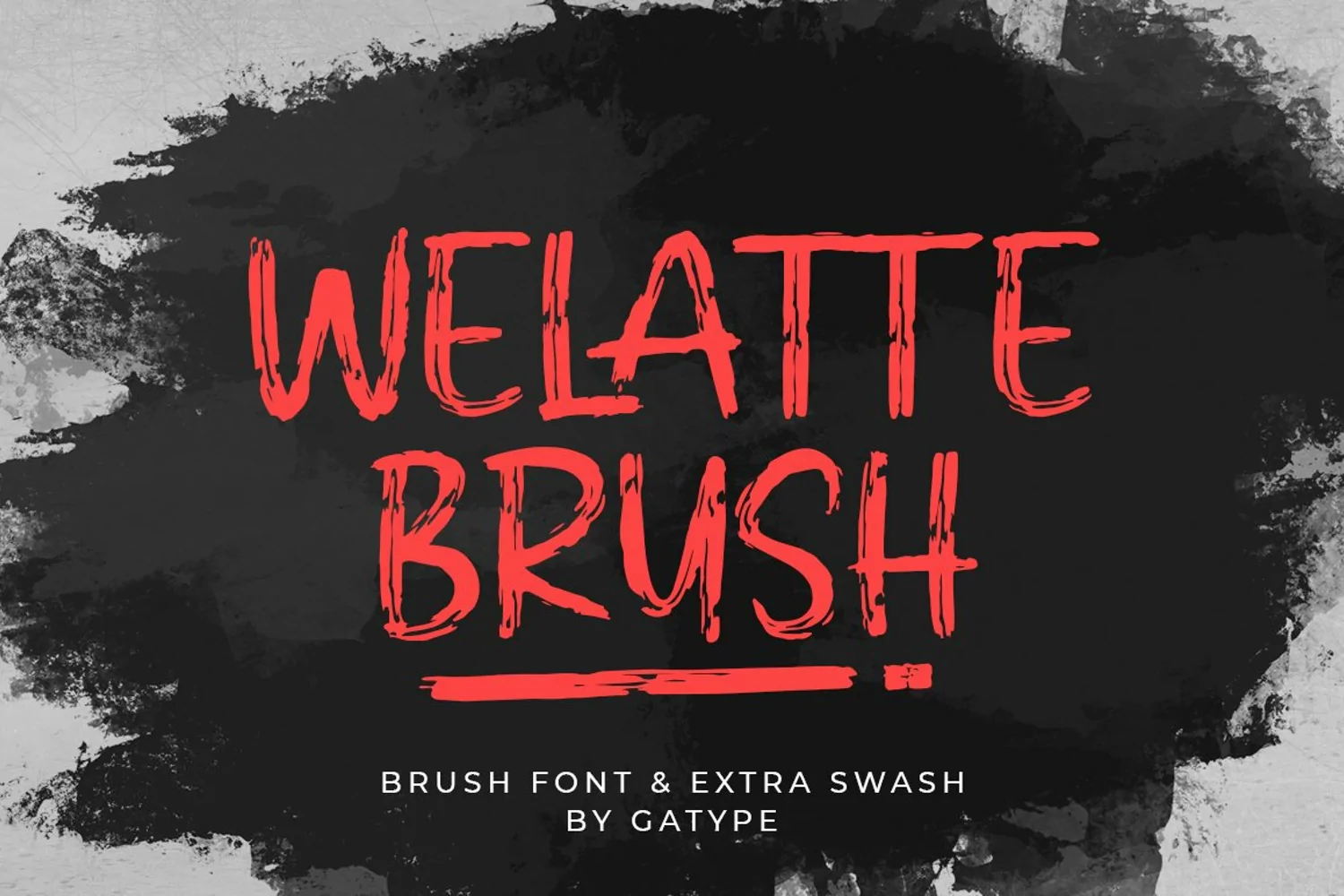
WELATTE BRUSH
Hi Everyone, introducing our new product WELATTE BRUSH Font,This is a Brush Font is a Natural, Textured and classy style with a clear style and dramatic movement. This WELATTE BRUSH font is great for your next creative project like logos, printed quotes, invitations, cards, product packaging, headers, Logo Type, Letterheads, Posters, This font design is great for your creative projects like watermarks on photography, and perfect for logos & branding, invitations, advertisements, product designs, stationery, wedding designs, labels, product packaging, special events or anything that requires a taste in handwriting.